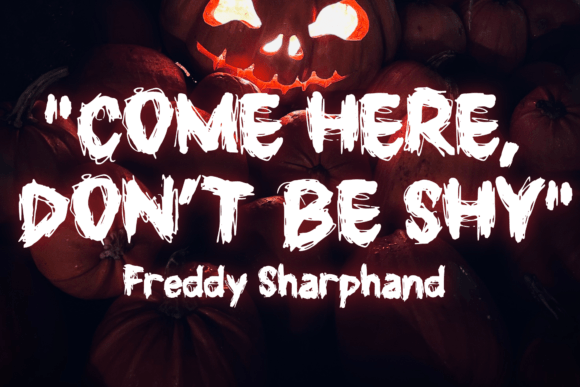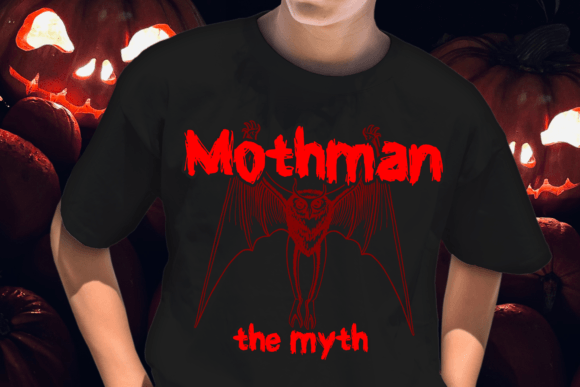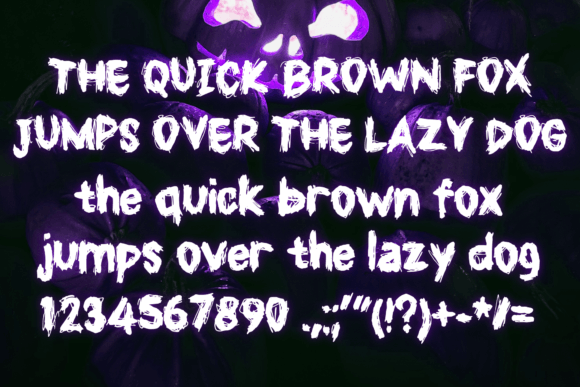
Introduction to Mothman Legend Font
Mothman Legend is a grunge spooky font, inspired by 90s horror movies.
It will be perfect for your horror and Halloween-themed needs You can use it for anything ranging from t-shirts and clothing, to your book designs, Halloween party needs, greeting cards, stickers, posters, banners, or anything that needs a cool touch.